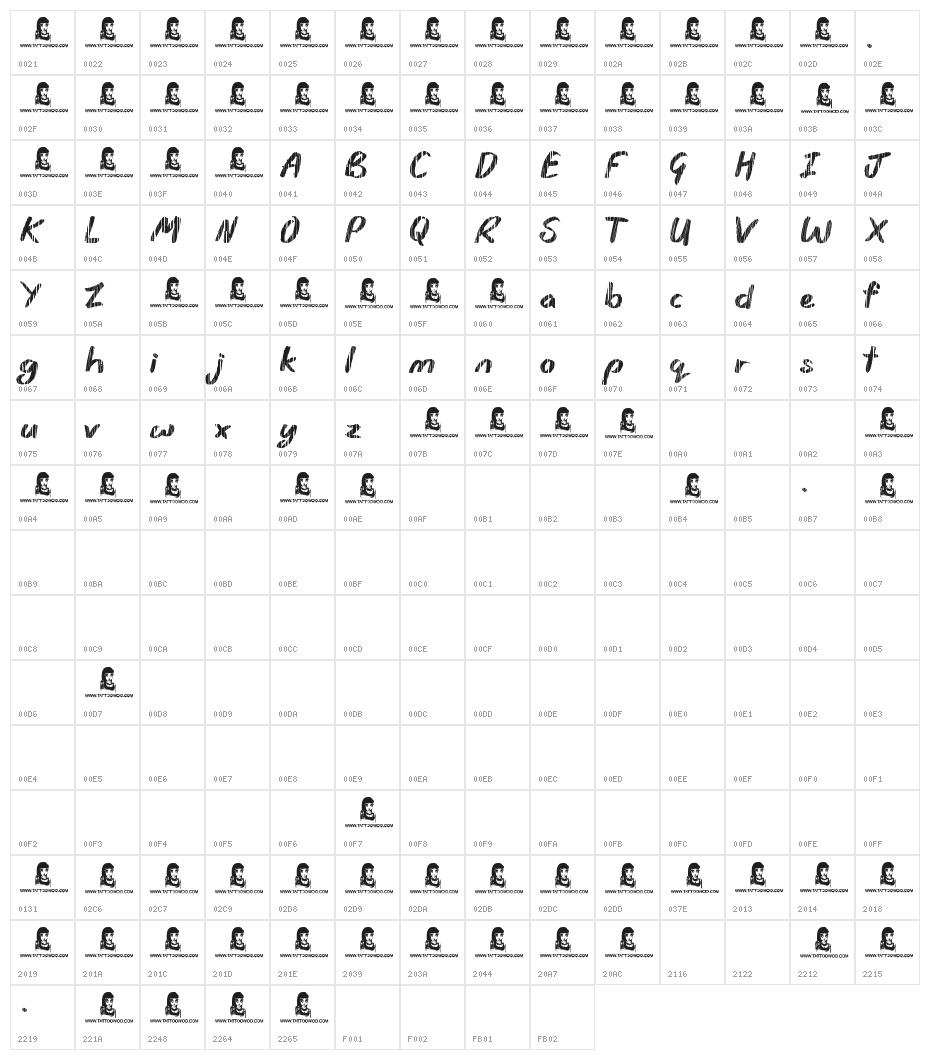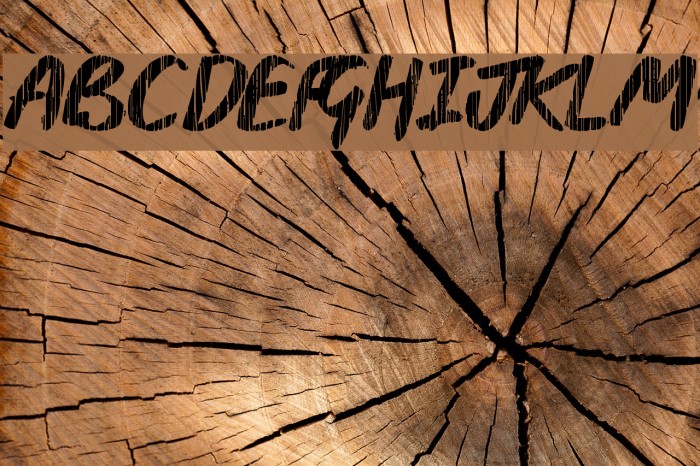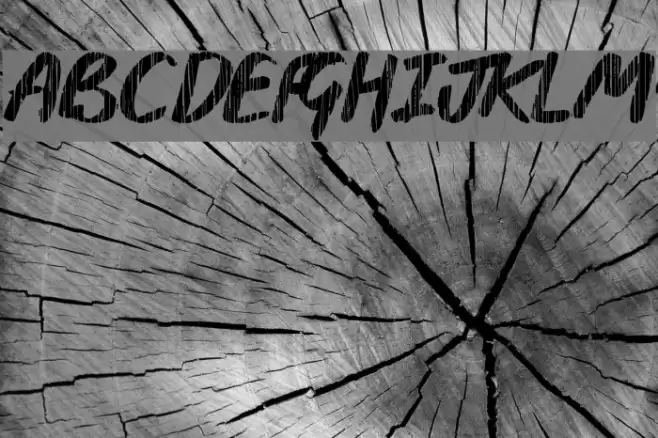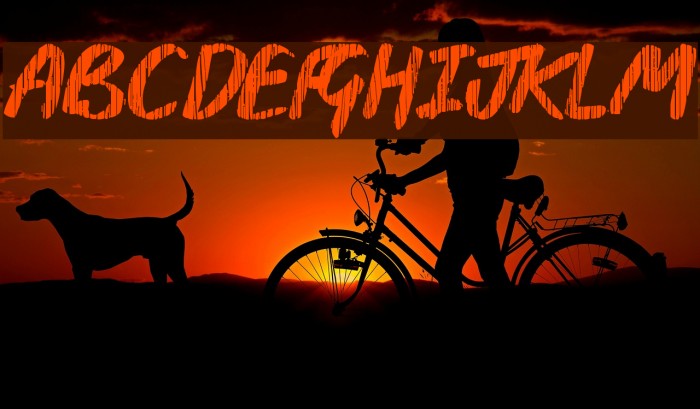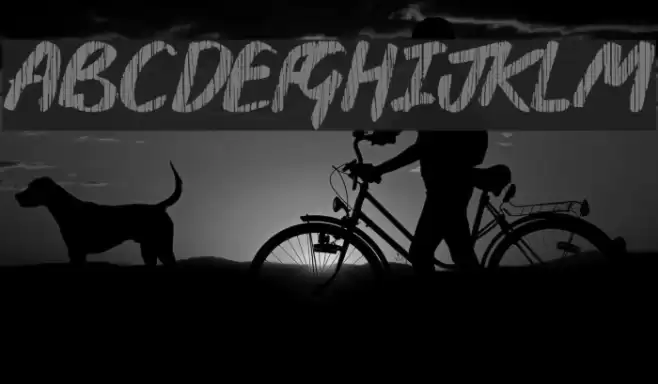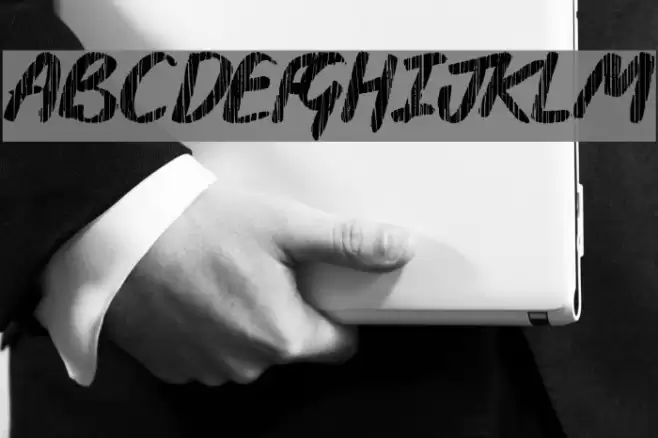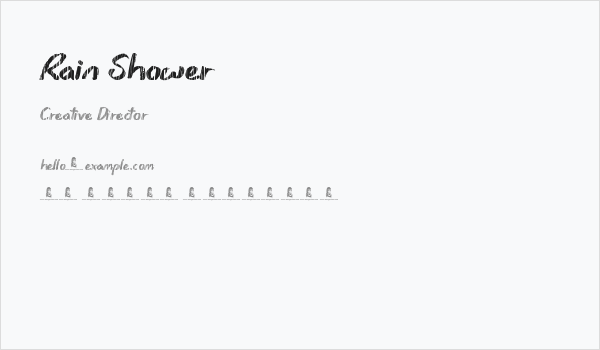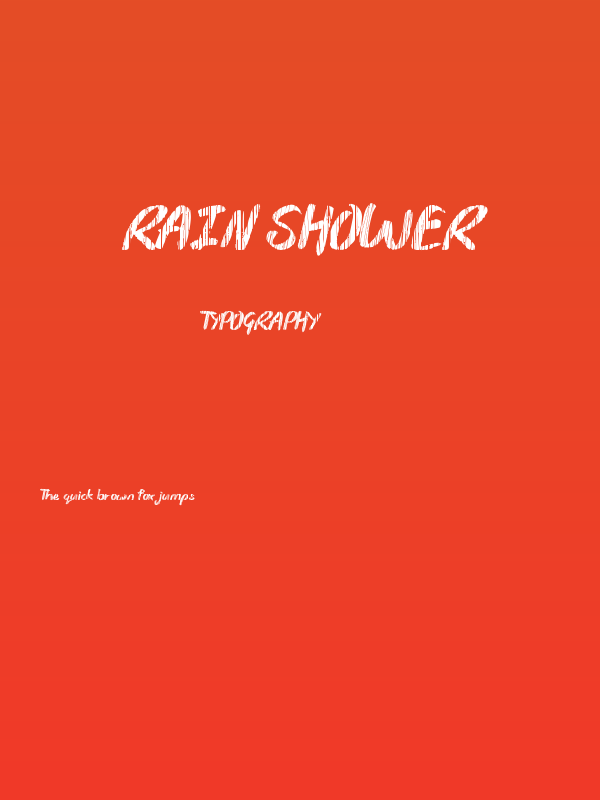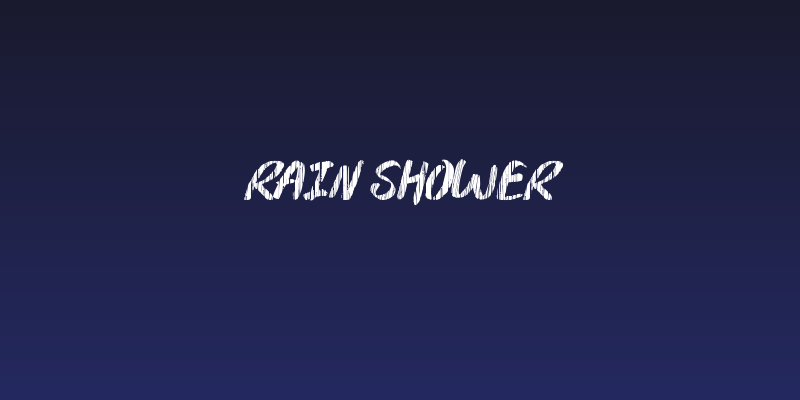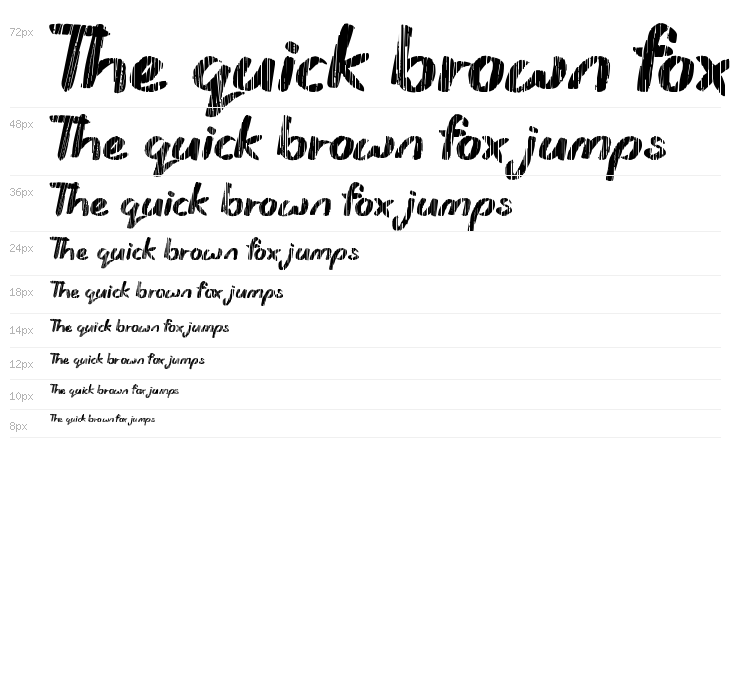
Rain Shower Font
Rain Shower Description
This font features a dynamic and textured style, reminiscent of brush strokes or rain patterns. The characters are bold and have a hand-drawn appearance, with irregular edges that give them a unique, artistic flair. The uppercase and lowercase letters maintain a consistent style, with a playful yet sophisticated look. The numbers and special characters follow the same design, making the font versatile for various uses. The overall impression is one of creativity and expressiveness, suitable for projects that require a distinctive and eye-catching typeface.
| Overall Style | Artistic, Creative |